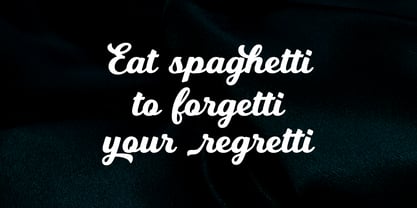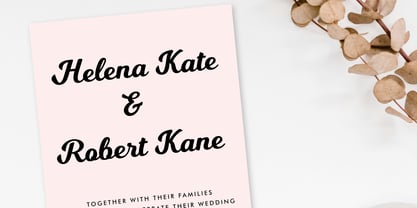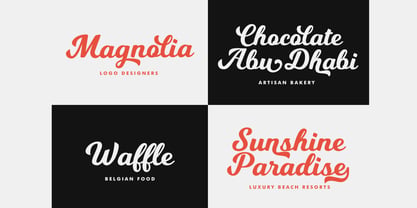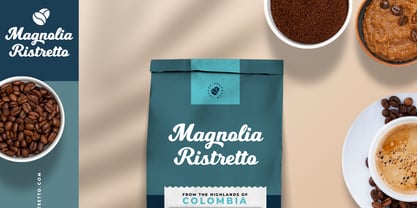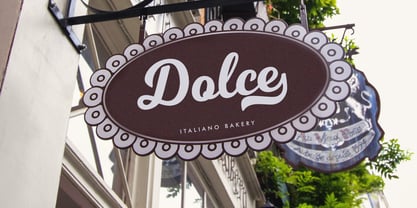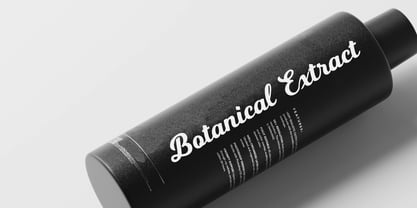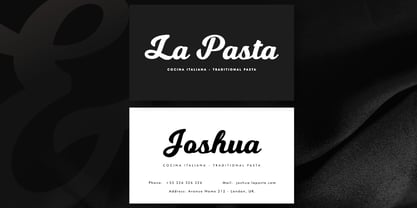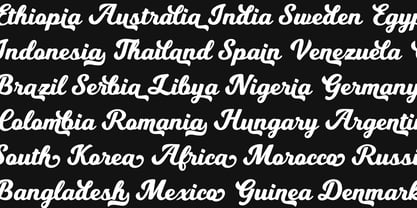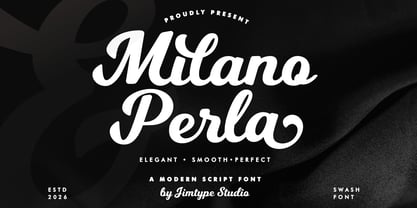
Milano Perla Script Font
by Jimtype Studio
The Milano Perla Script Font Font Family was designed by Jamaludin Jumadil Khubro and published by Jimtype Studio. Milano Perla Script Font contains 1 styles. More about this family
Milano Perla — Modern Branding Script Font
Elevate your designs with Milano Perla, a bold yet fluid script font designed to bring character, dynamism, and a touch of retro charm to your work.
With its bold style, flowing curves, and natural swashes, Milano Perla makes a stunning impression—perfect for logos, branding, headlines, and social media. It is crafted to help you easily create designs that feel natural and distinctive.
Whether for logos, branding, product packaging, wedding stationery, or social media, Milano Perla infuses your typography with a strong handwritten character while maintaining a clean, modern aesthetic.
Designers: Jamaludin Jumadil Khubro
Foundry: Jimtype Studio